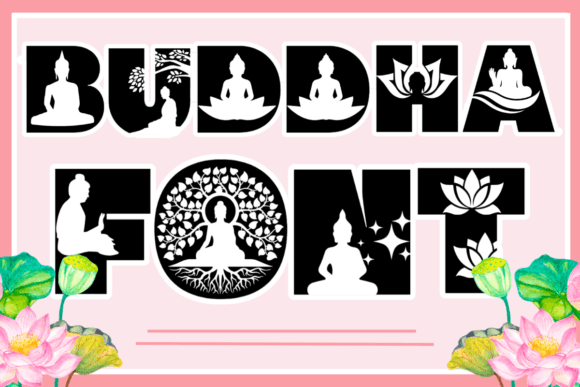
Buddha Font: Where Serenity Meets Typography
Have you ever been working on a design project, staring at a blank screen, and suddenly, an idea strikes you like a ray of sunlight on a peaceful morning? It’s moments like these that remind us why we became designers in the first place. For me, one such moment was when I stumbled upon the Buddha Font – a decorative font that combines elegance and serenity in a way that’s both calming and captivating.
The Buddha Font, specifically the “Buddha Bold” variant, features a subtle silhouette of Buddha within each letter. This ingenious design creates a unique visual effect that can instantly elevate your designs from ordinary to extraordinary. As a designer, you’ll appreciate the versatility of this font, which can be used in a wide range of projects, from posters and flyers to digital interfaces and social media graphics.
Buddha Font Key Features
- Font Family: Buddha Font is a unique, custom-designed font that is not part of a standard font family.
- Unique Characteristics: Features a distinctive, hand-drawn style with intricate details and ornaments, adding a touch of elegance and sophistication to any text.
Buddha Font Review
I recently had the chance to work with the Buddha Font, and I must say it’s an interesting choice for a font. ✨ One of the things I liked about it was the unique, hand-drawn style that immediately caught my attention. It’s perfect for adding a touch of personality to your designs, especially if you’re going for a more creative or spiritual vibe.
Another aspect that works well is the range of weights and styles available, from light to bold and even some ornate versions. This makes it easy to find the perfect version to suit your design needs. ✨ Additionally, the font is quite legible, even at smaller sizes, which is a plus for designers who need to work with a lot of text.
- ⚠️ The font may not be suitable for formal or corporate designs, as it can come across as too casual or unconventional.
- ⚠️ Some of the more ornate versions of the font can be quite cluttered, which may make them difficult to read in certain contexts.
- ⚠️ The font doesn’t come with a lot of language support, which may be a limitation for designers who need to work with multiple languages.
Overall, I think the Buddha Font is a great choice for designers who want to add a touch of personality to their work. While it may not be suitable for every project, it’s definitely worth considering for the right design.
The Buddha Font is ideal for creating spiritual, wellness, or mindfulness-themed designs. Use it to add a touch of Eastern-inspired elegance to your projects.
Some common use cases include:
- Creating meditation or yoga-inspired graphics.
- Designing spiritual or wellness-themed websites.
- Adding a touch of Eastern-inspired elegance to business cards or brochures.
Alternatives to Buddha Font for Designers
Great Vibes is a beautiful, elegant script font that is perfect for adding a touch of sophistication to your designs. It’s ideal for use in invitations, posters, and other promotional materials where a stylish, handwritten feel is desired. In comparison to Buddha Font, Great Vibes has a more refined and luxurious look, making it suitable for high-end designs.
Pacifico is a modern script font with a relaxed, beachy vibe. It’s great for use in designs that require a casual, friendly tone, such as restaurant menus, event invitations, or social media graphics. While Buddha Font has a more spiritual and mystical feel, Pacifico is more laid-back and fun, making it perfect for designs that need a carefree atmosphere.